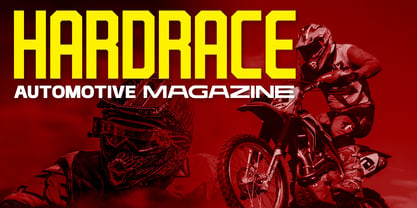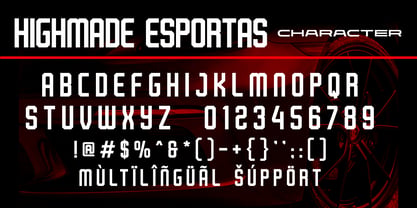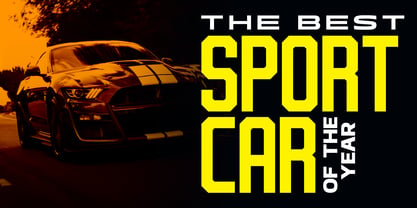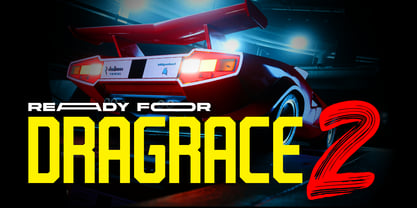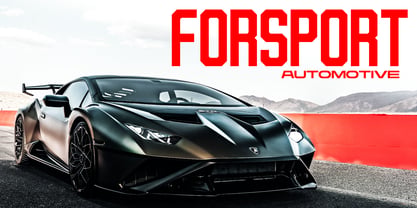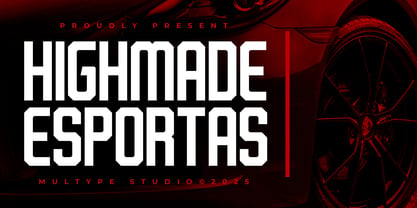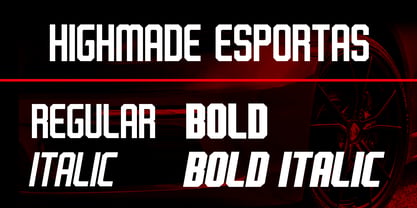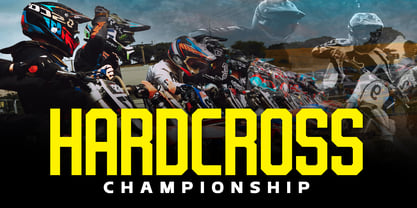
Highmade Esportas
von Multype Studio
Die Schriftfamilie Highmade Esportas wurde von Mulia Yanto entworfen und von Multype Studio veröffentlicht. Highmade Esportas enthält 4 Stile und Familienpaketoptionen. Mehr über diese Familie
Highmade Esportas is a bold and dynamic display font designed to bring energy and impact to your designs. With its strong, sporty character, this typeface is perfect for a wide range of sports-related projects, including football, soccer, and basketball jerseys, team logos, esports branding, and athletic merchandise. Whether you’re creating a custom jersey or building a powerful team identity, Highmade Esportas helps your design stand out with confidence and style. Beyond traditional sports use, Highmade Esportas is also highly suitable for racing themes and automotive projects. Its sharp and aggressive letterforms make it an excellent choice for racing logos, motorsport branding, car decals, event posters, and high-speed themed designs. The font captures the spirit of motion, competition, and adrenaline, making it ideal for any project that needs a fast and energetic visual appeal. Highmade Esportas gives you the flexibility to experiment and create unique compositions. You can easily generate custom football, soccer, or basketball jersey designs using this sporty font, allowing you to craft professional-looking apparel with ease. Its versatility ensures that it works seamlessly across both digital and print media, making it a reliable choice for designers of all levels. What’s Included: Highmade Esportas All Caps ( Regular, Italic, Bold, and Bold Italic ) Numbers & Symbols Works on PC / Mac Simple installations Accessible in the Adobe Illustrator, Adobe Photoshop, Adobe InDesign, even work on Microsoft WordPUA Encoded Characters, Fully accessible without additional design software Multilingual support Thank you for your purchase! We truly hope you enjoy using Highmade Esportas and that it helps bring your creative ideas to life with speed, strength, and style.
Designer: Mulia Yanto
Foundry: Multype Studio